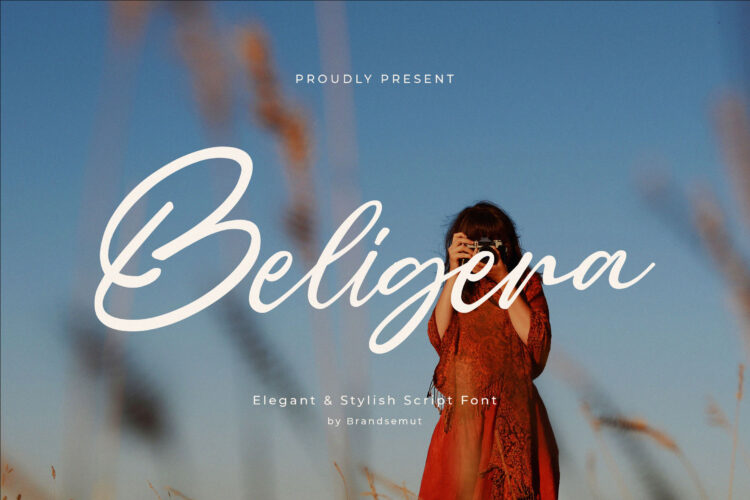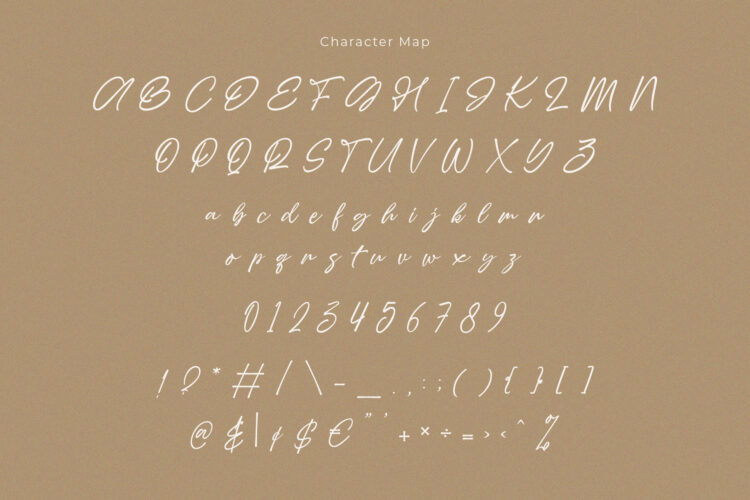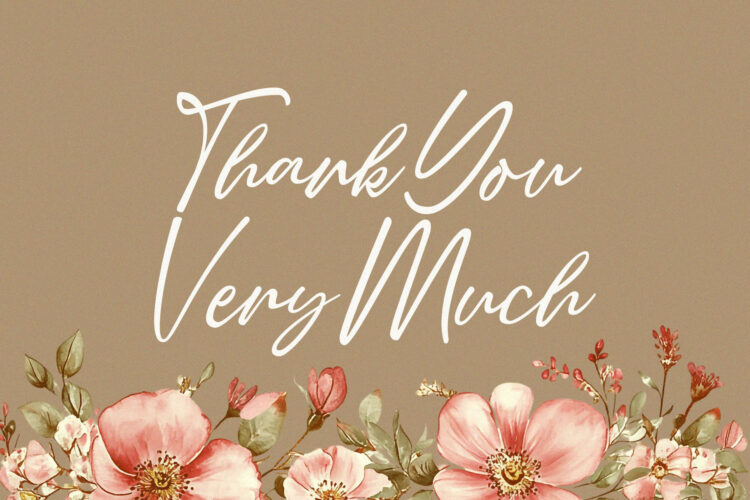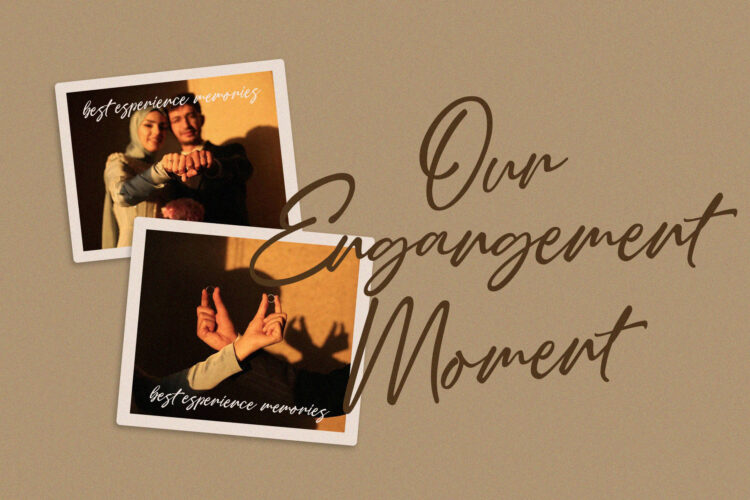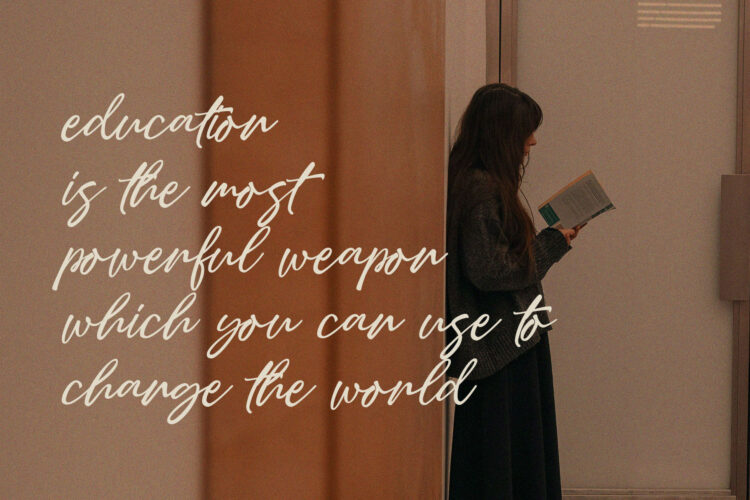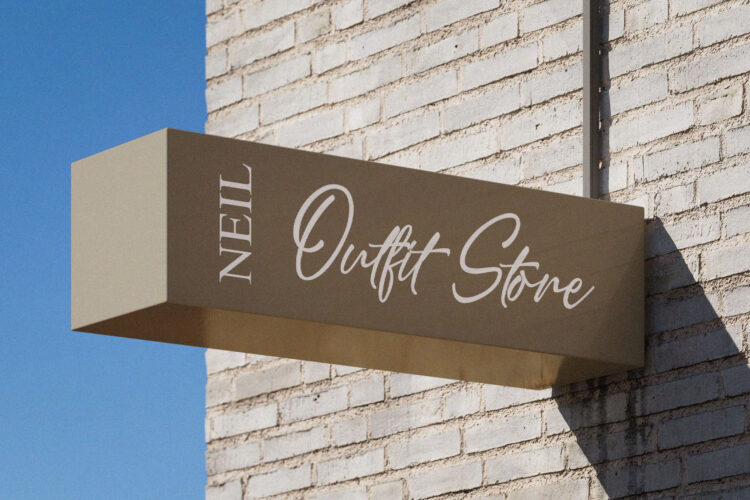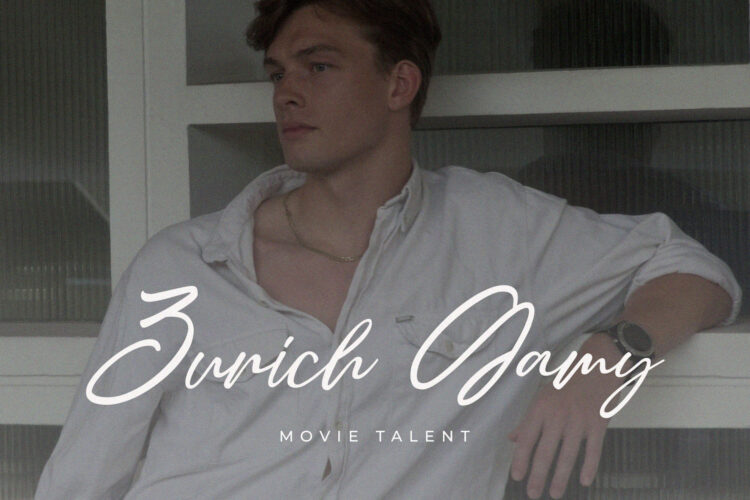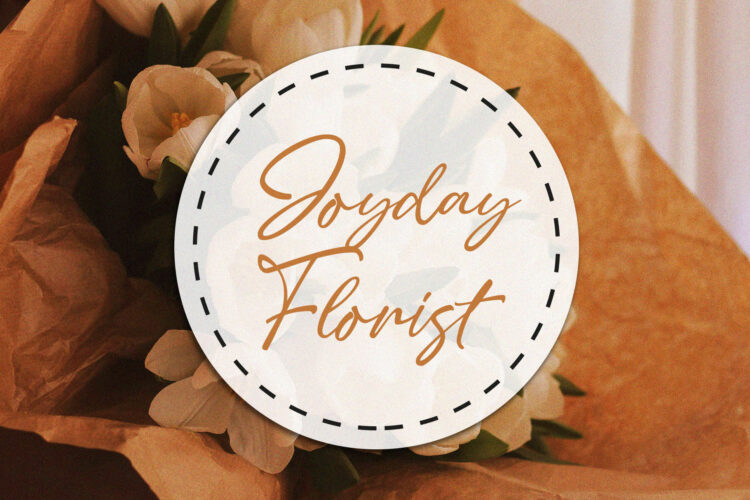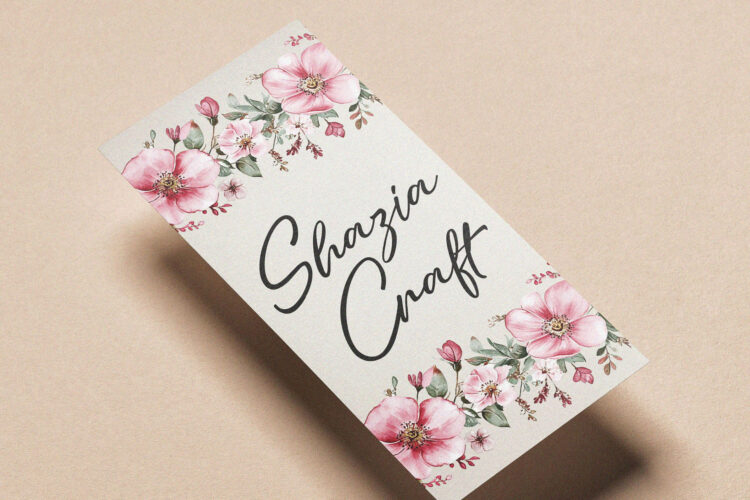
Introducing the new Beligera Script Font is a elegant and stylish handwritten script, that you can use to perfect your design.
You will get full set of lowercase and uppercase letters, multilingual, numerals and punctuation.
Beligera – Elegant & Stylish Script Font